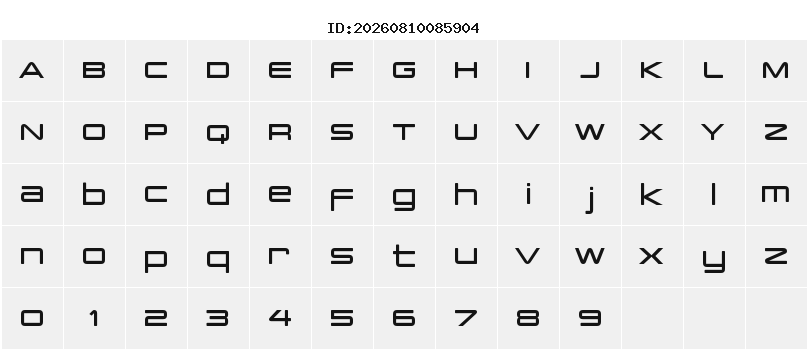
PCap Terminal Preview
• Font Name: PCap Terminal
• Designer: Neale Davidson
• Manufacturer: Neale Davidson
About PCap Terminal.otf
PCap Terminal.otf is a modern, elegant sans-serif font designed for ultimate readability and visual harmony. Perfect for branding, headlines, web design, and print materials.